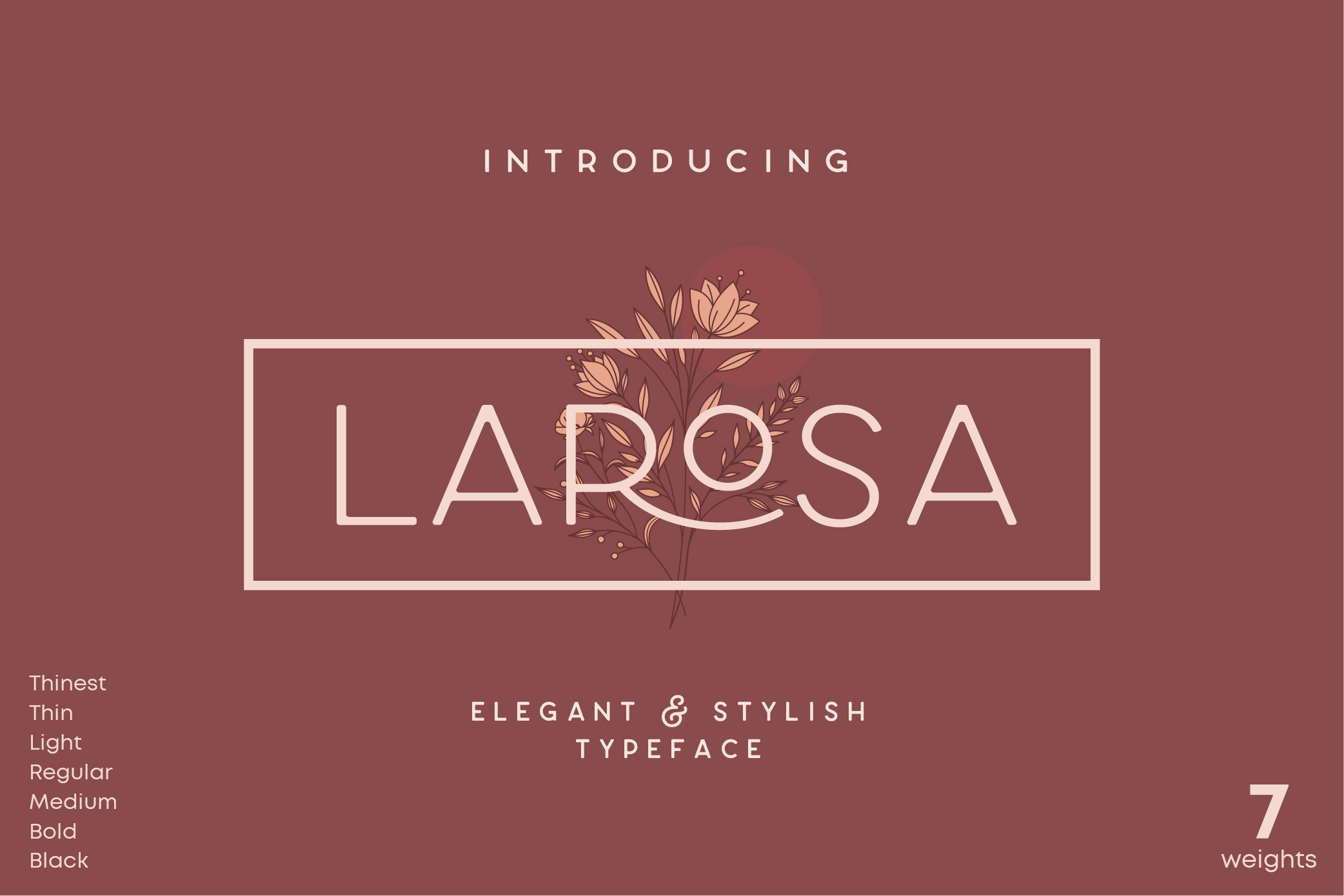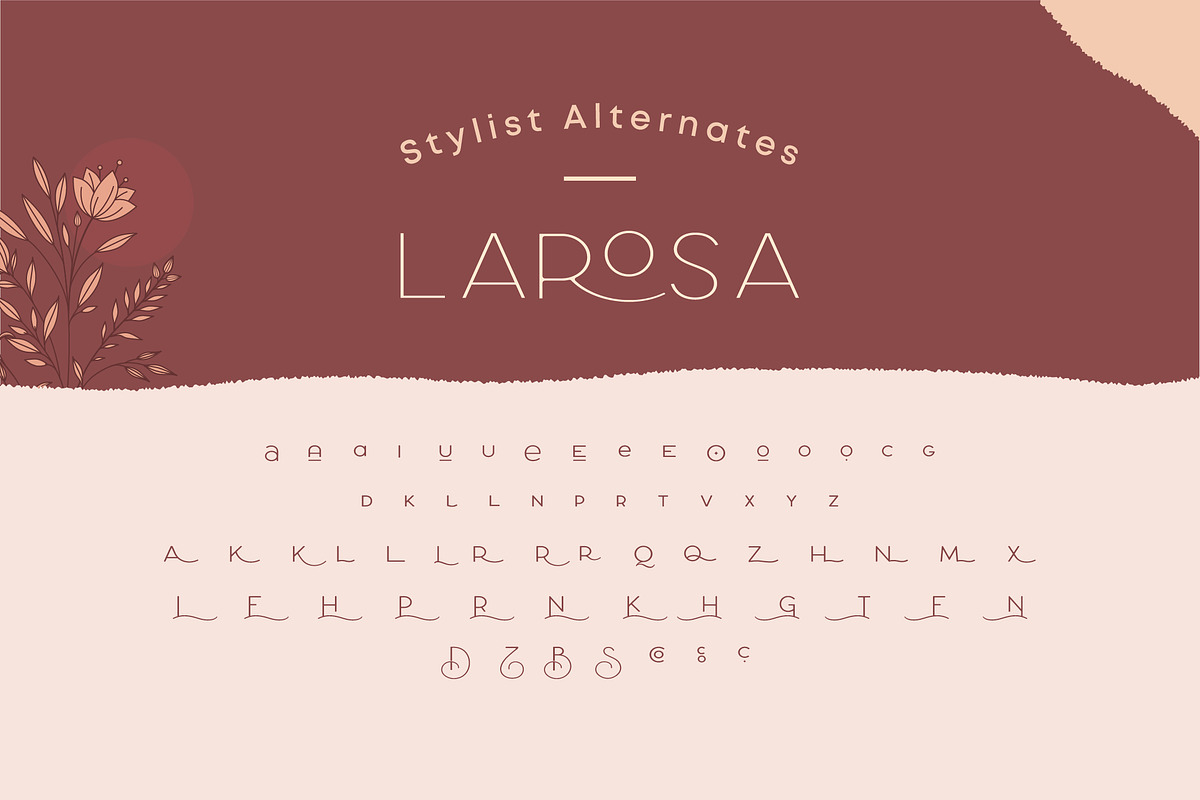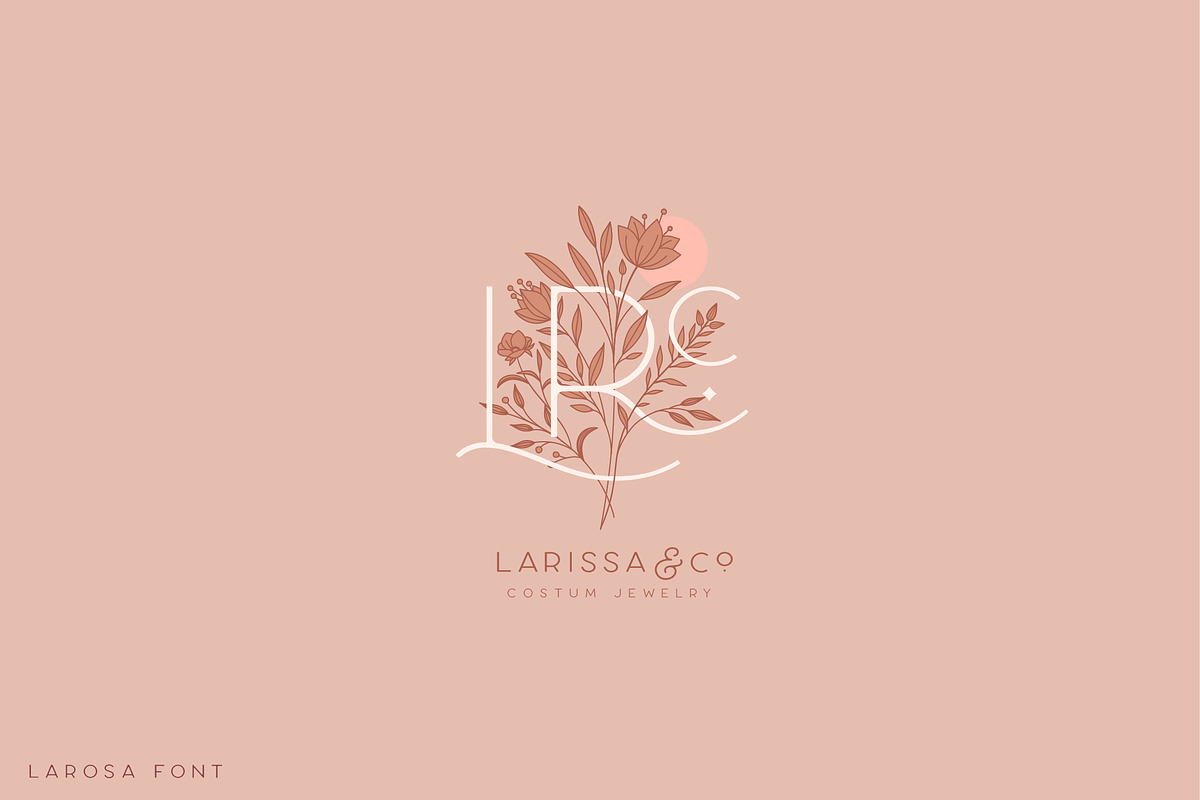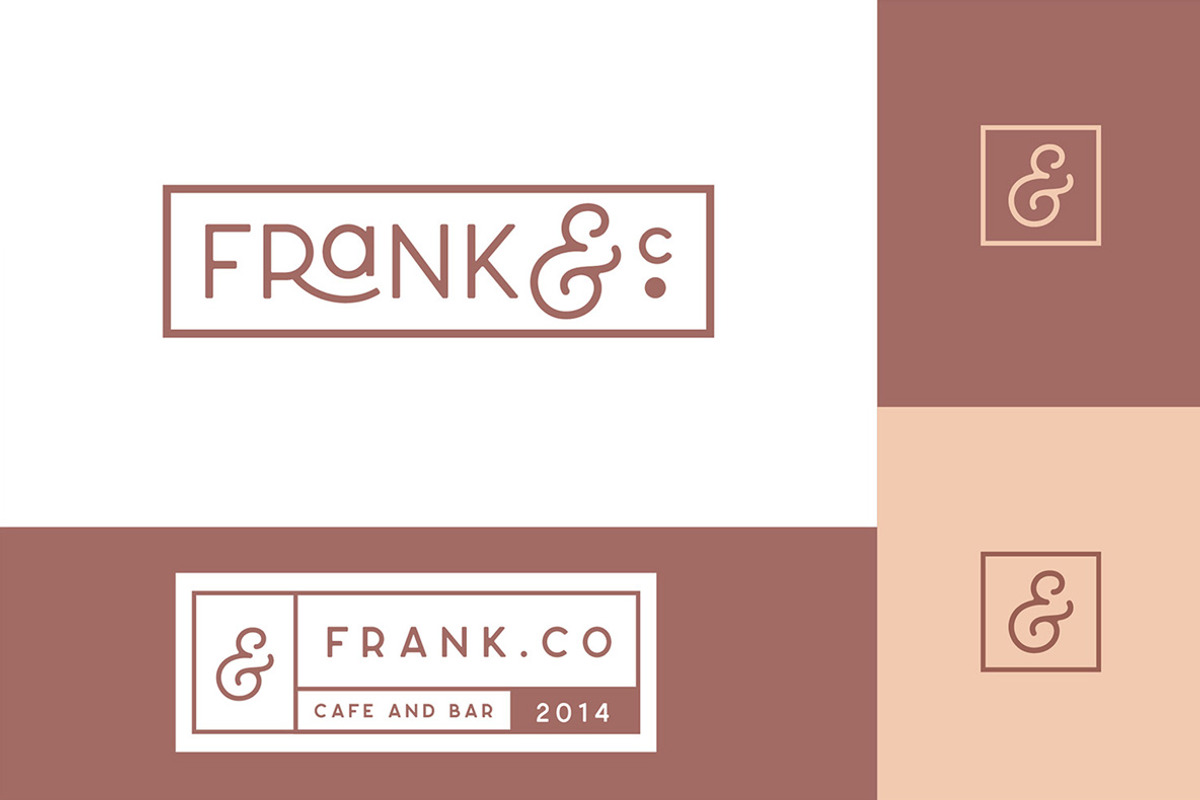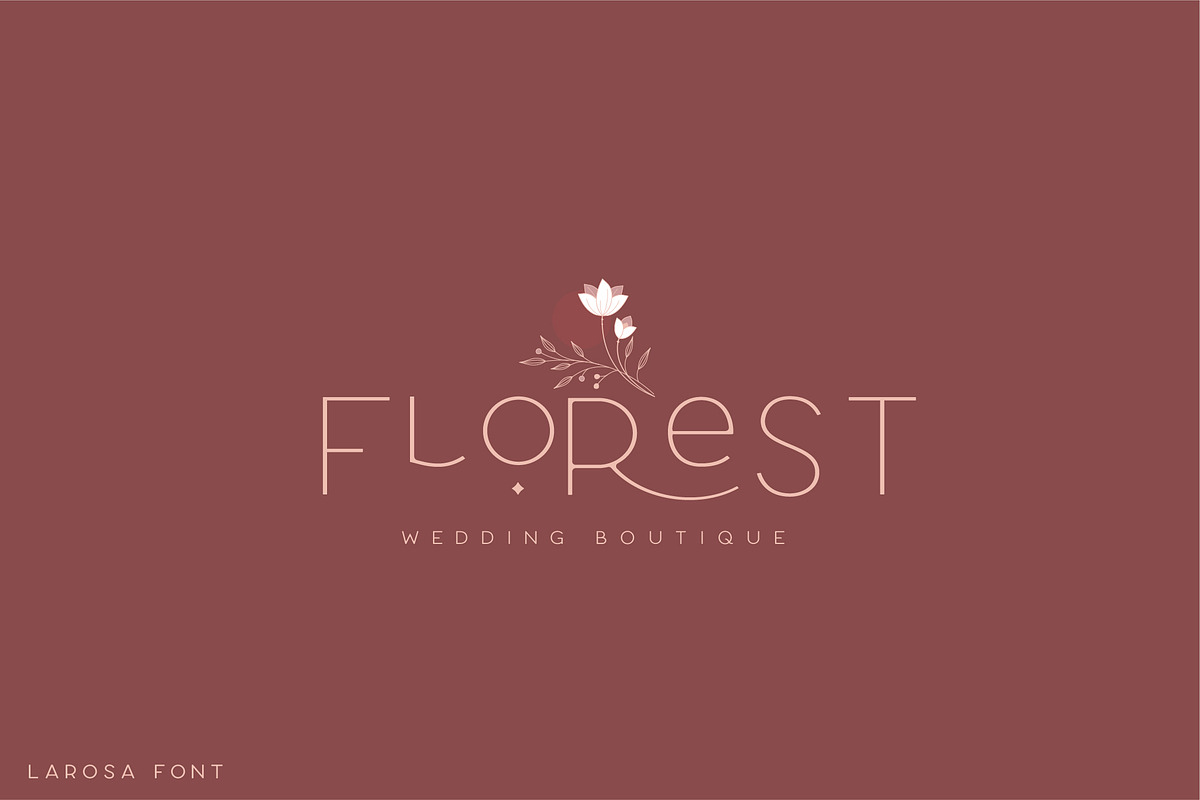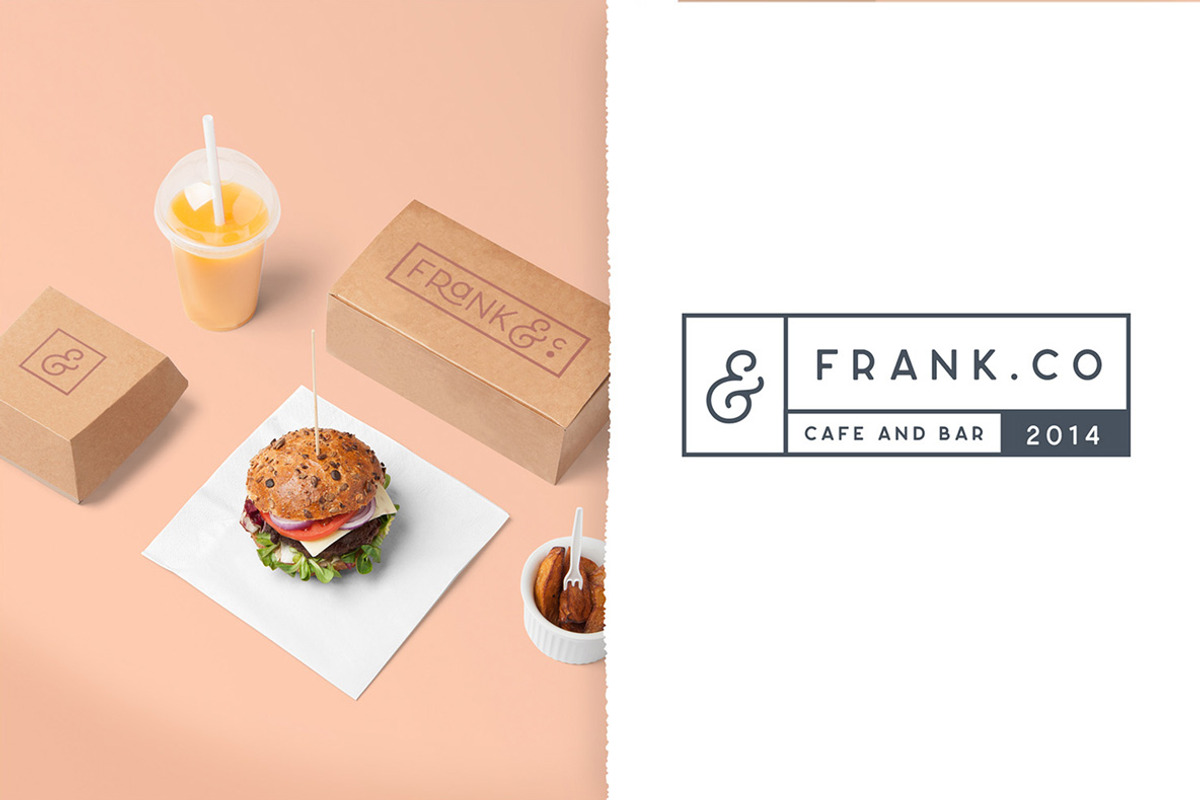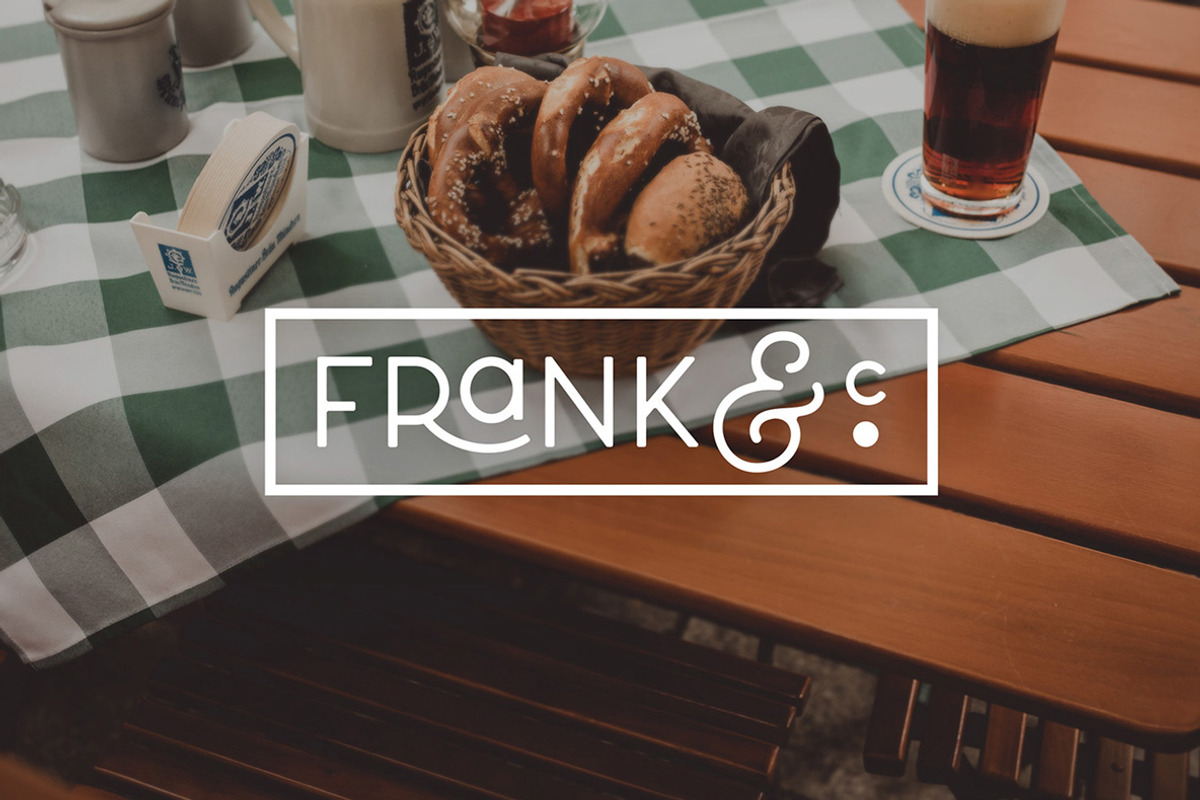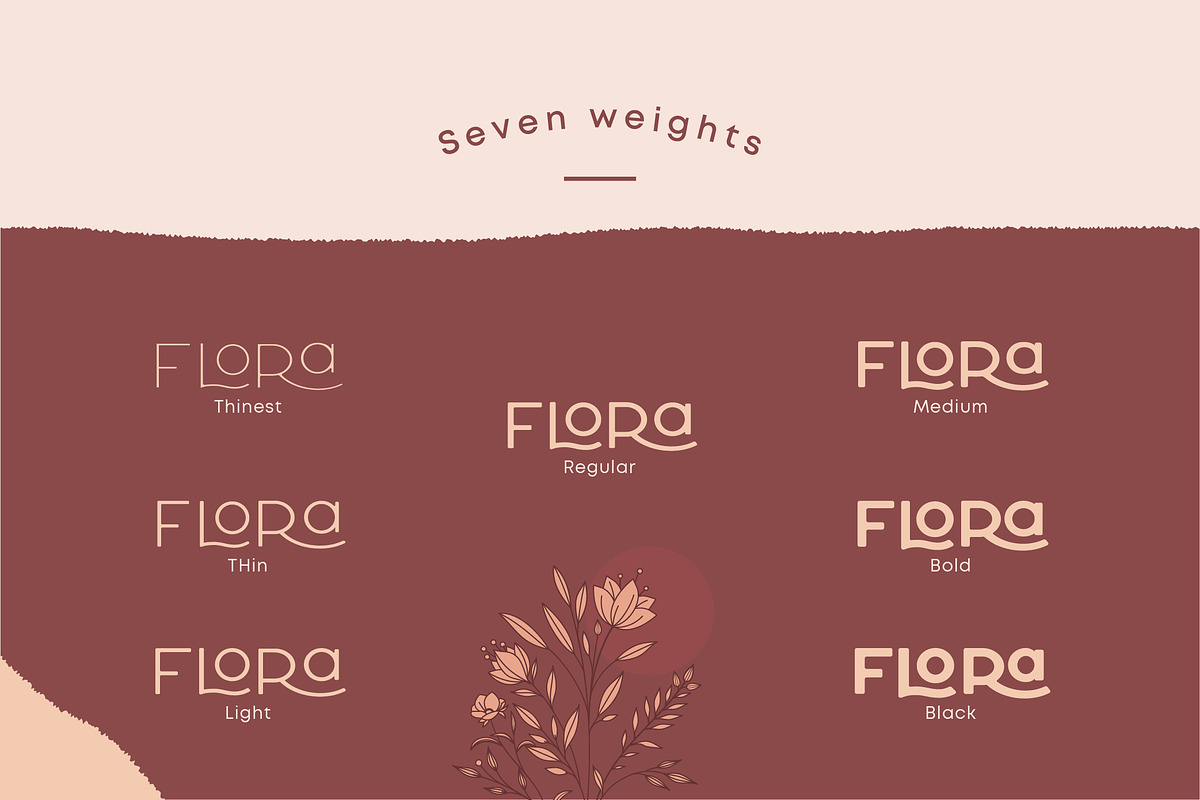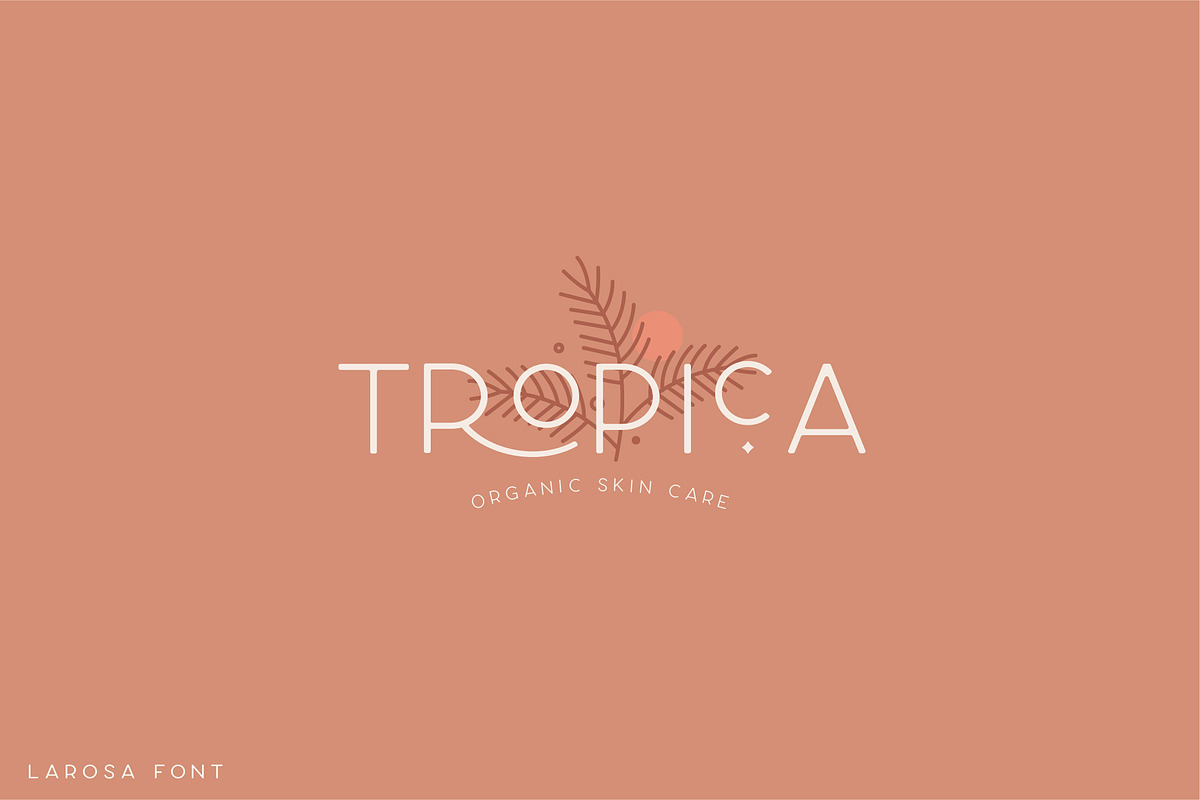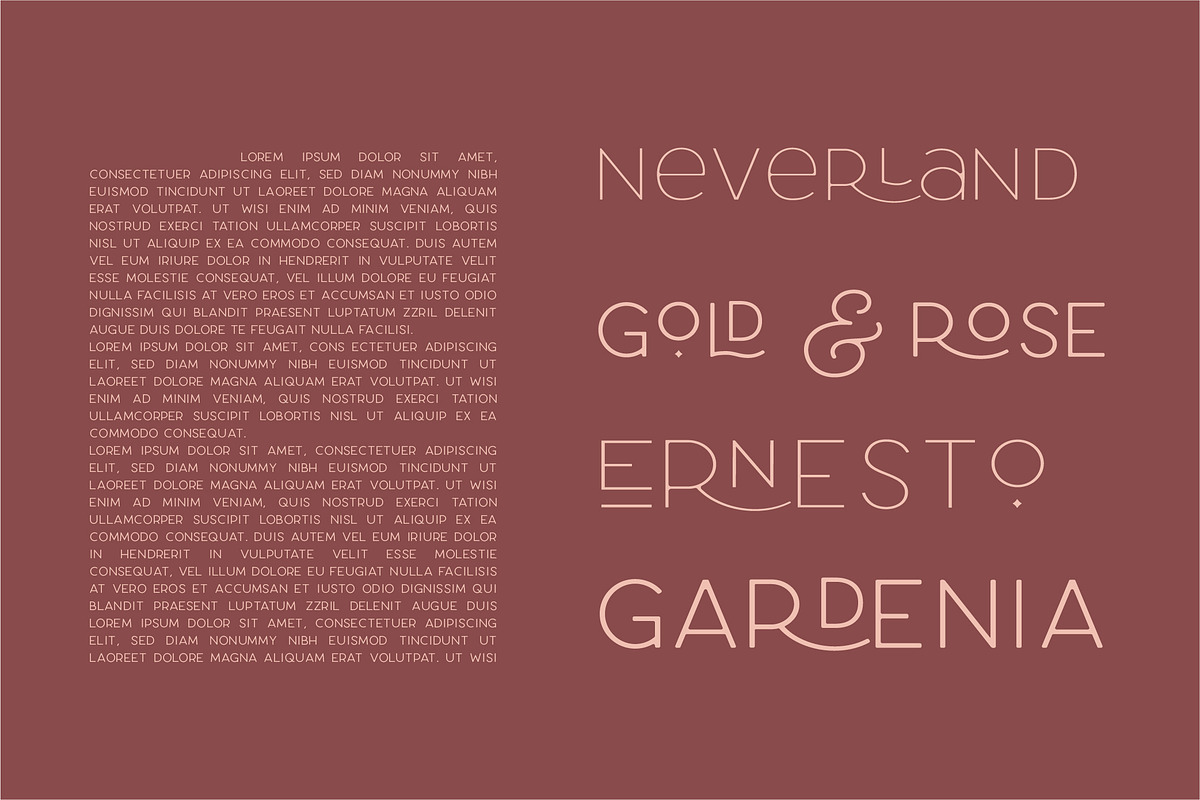
Larosa Sans Elegant Typeface
Introducing Larose Sans - An elegant modern sans serif with ton of stylistic alternates to choose. Its clean and minimalistic works wonderfully on its own for logos, headlines, posters, packaging and many more! And with Three different weights to choose, your option to create more unique and versatile design is a lot wider. Have fun and create more.. Your Imagination only your limit!!
7 Weights font
All caps
Stylistic Alternates & Ligatures
Accented characters
Multiple Languages Supported